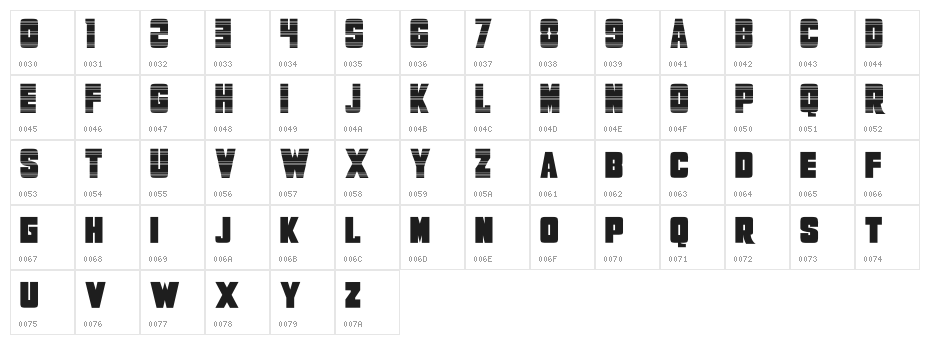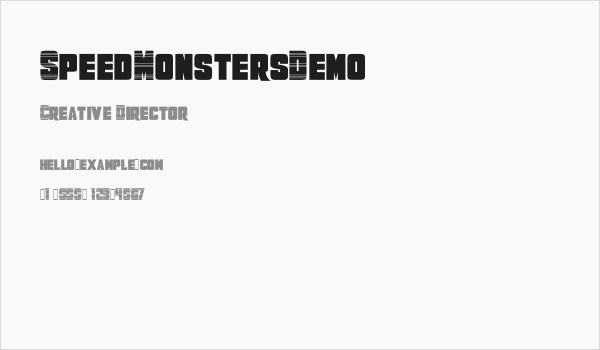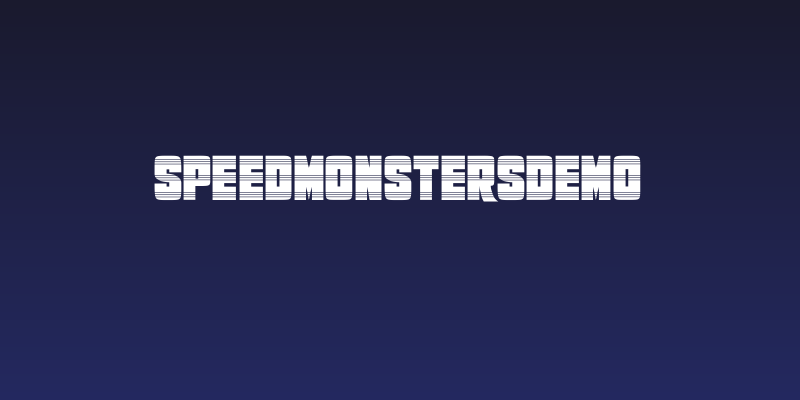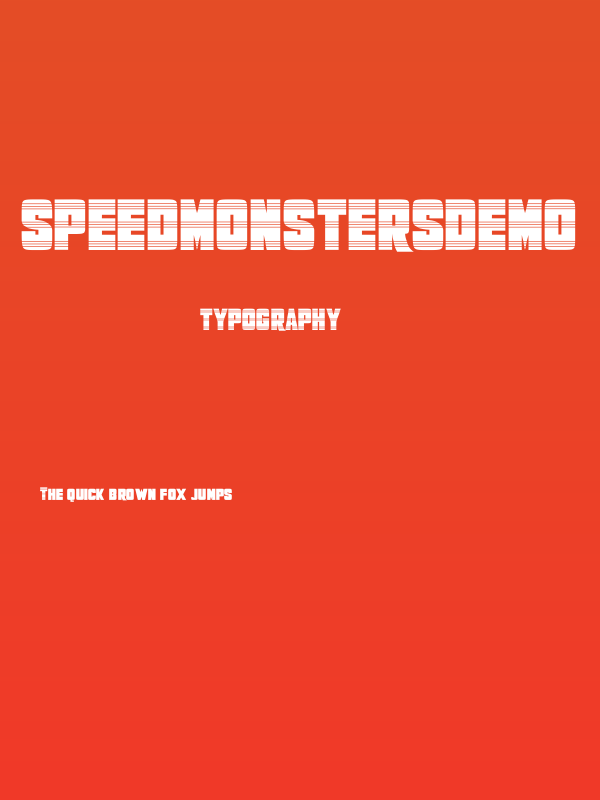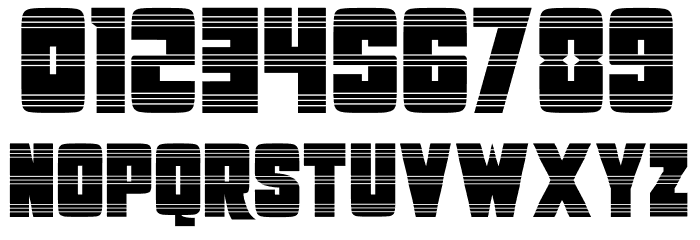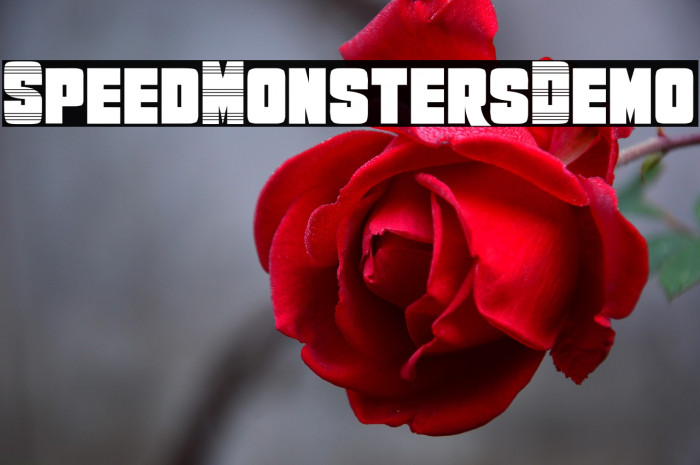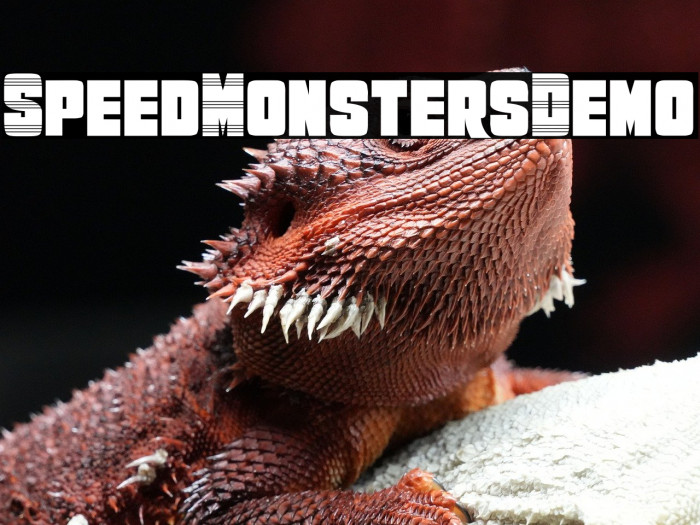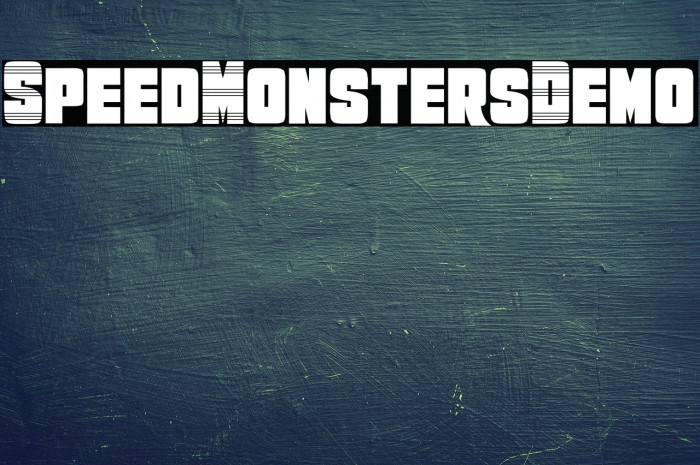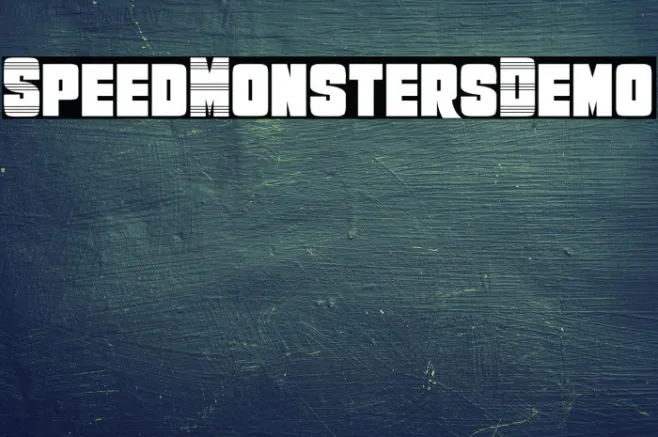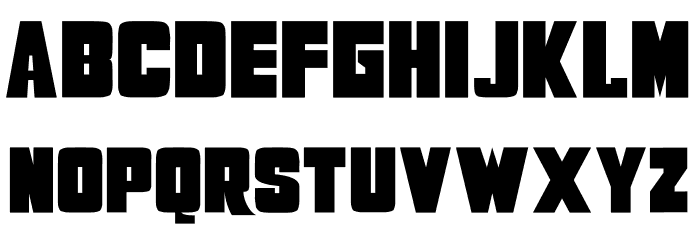
SpeedMonstersDemo Font
SpeedMonstersDemo Description
This bold and dynamic font features a striking design with horizontal lines cutting through each character, creating a sense of speed and movement. The uppercase letters are robust and wide, emphasizing strength and impact. The numbers follow the same energetic style, making them ideal for attention-grabbing designs. This font is perfect for projects that require a modern and edgy look, such as sports branding, automotive advertisements, or any design that aims to convey motion and power. Its unique style ensures that it stands out in any context.
| Proposed Projects | Ideal for sports branding, automotive advertisements, and dynamic design projects. |